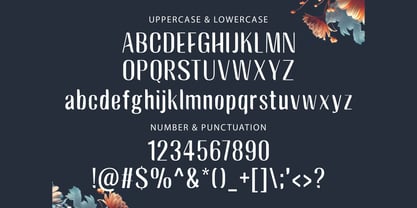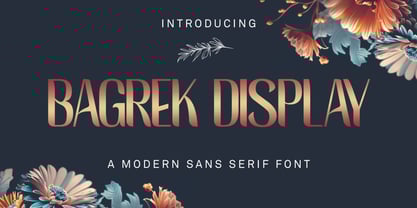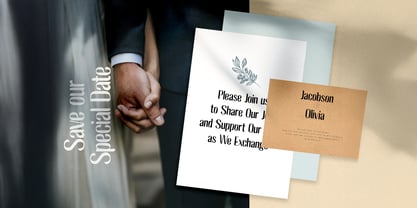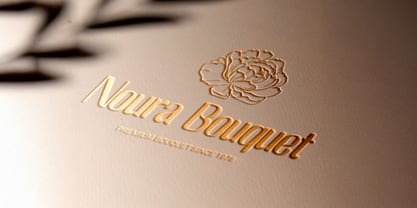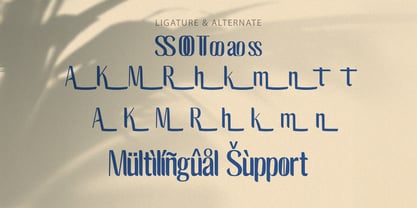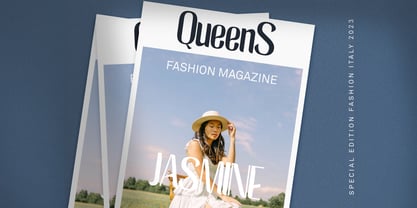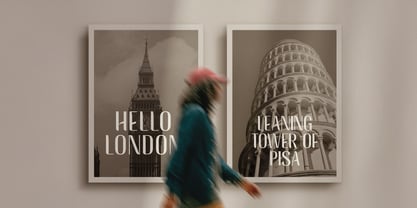
Bagrek Display
by Stringlabs Creative Studio
The Bagrek Display Font Family was designed by Virgiawan Listanto and published by Stringlabs Creative Studio. Bagrek Display contains 1 styles. More about this family
Bagrek Display is a bold sans serif font crafted for strong visual impact. With its clean lines, geometric shapes, and modern proportions, this font stands out in headlines, posters, logos, and branding projects. Its minimalist style ensures excellent readability while maintaining a striking presence. Perfect for both digital and print designs, Bagrek Display brings a contemporary, professional, and confident touch to any creative work.
Designers: Virgiawan Listanto
Foundry: Stringlabs Creative Studio